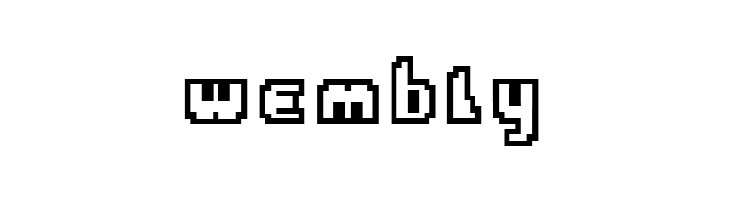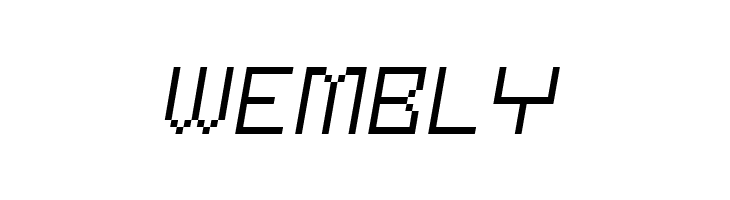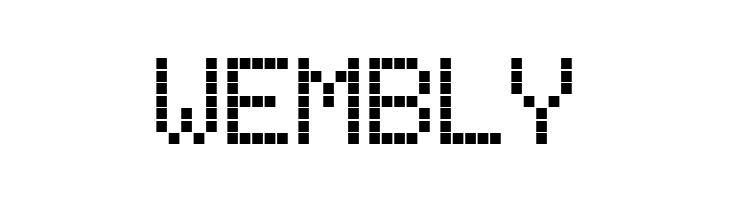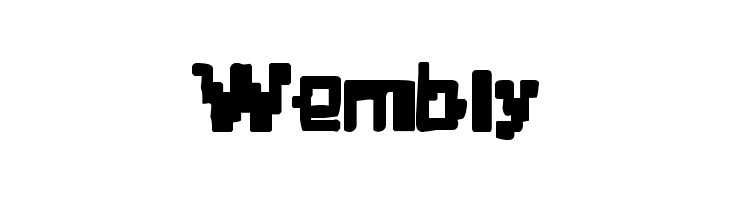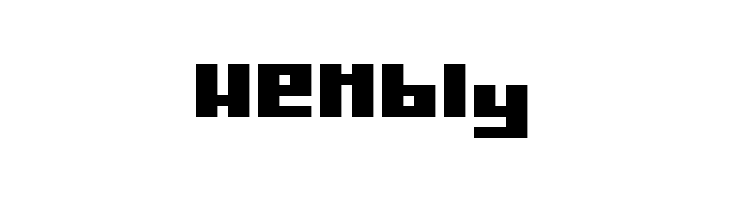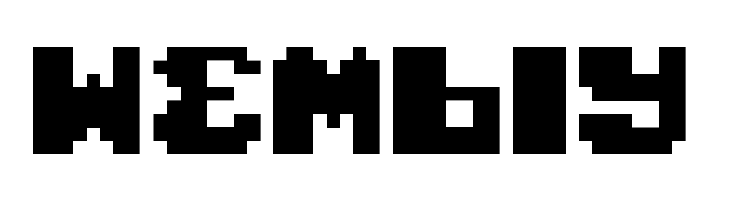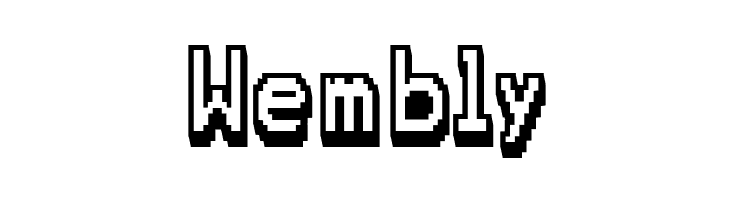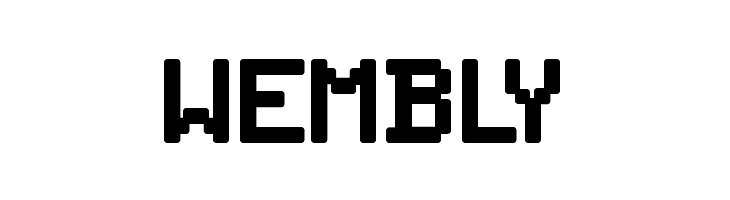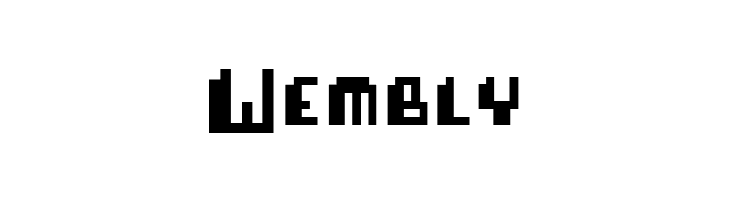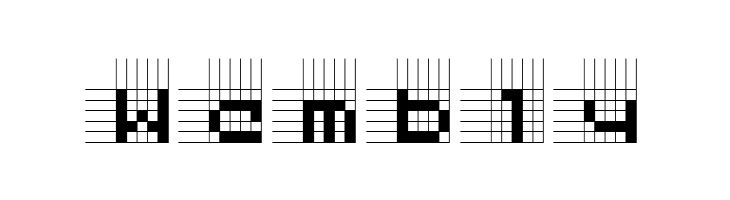
A pixelated, oblique font with a modern, digital aesthetic.
A geometric, pixelated font with a retro digital aesthetic.
A pixelated, grid-based font reminiscent of retro digital displays.
A bold, pixelated font with a rugged, stone-like appearance.
A bold, geometric font with a pixelated, retro digital style.
A bold, grid-patterned font with a pixelated, digital style.
A pixelated, arcade-inspired font with a nostalgic, digital look.
A bold, pixelated font with a playful, retro digital aesthetic.
A bold, condensed, italic font with a pixelated, digital aesthetic.
A bold, italic, pixelated font with a retro digital aesthetic.
A bold, pixelated font with a rugged, digital aesthetic.
A bold, pixelated font with a retro, digital aesthetic.
A bold, pixelated font with a condensed, digital style.
A pixelated, retro-style font with a blocky, geometric design.
A pixelated, grid-based font with a retro digital aesthetic.